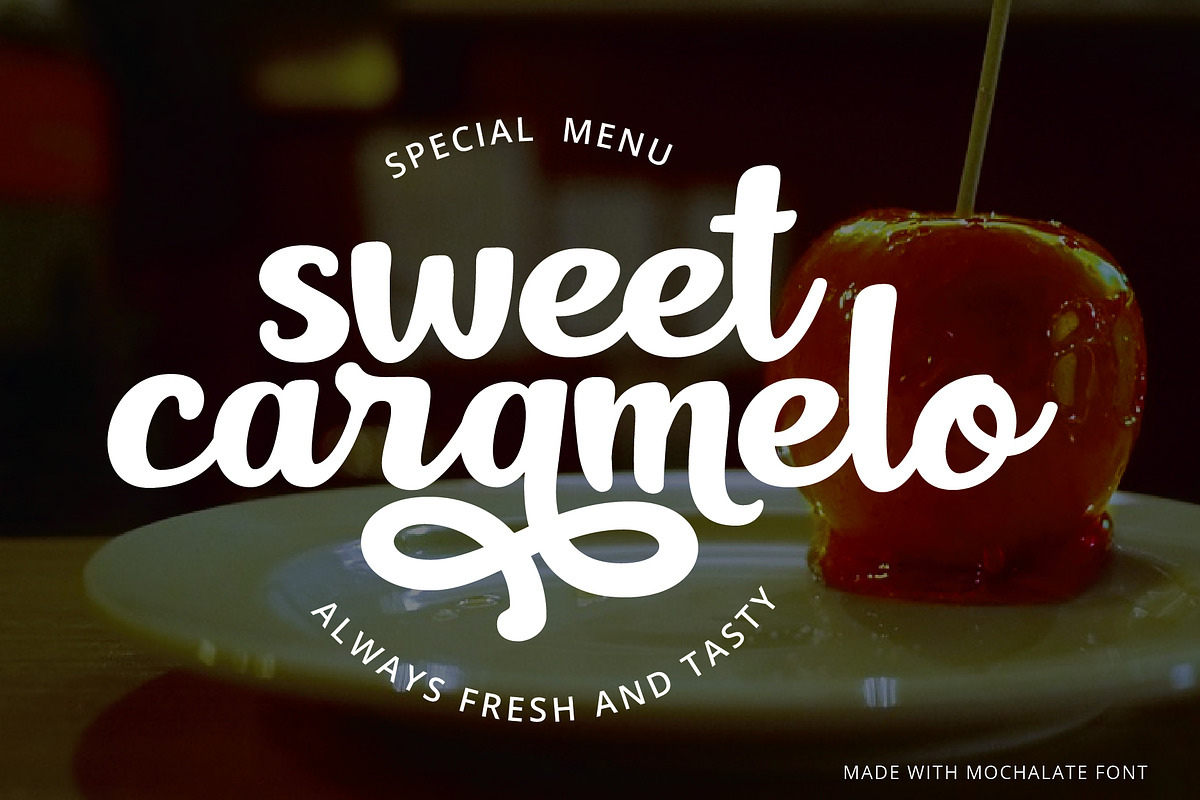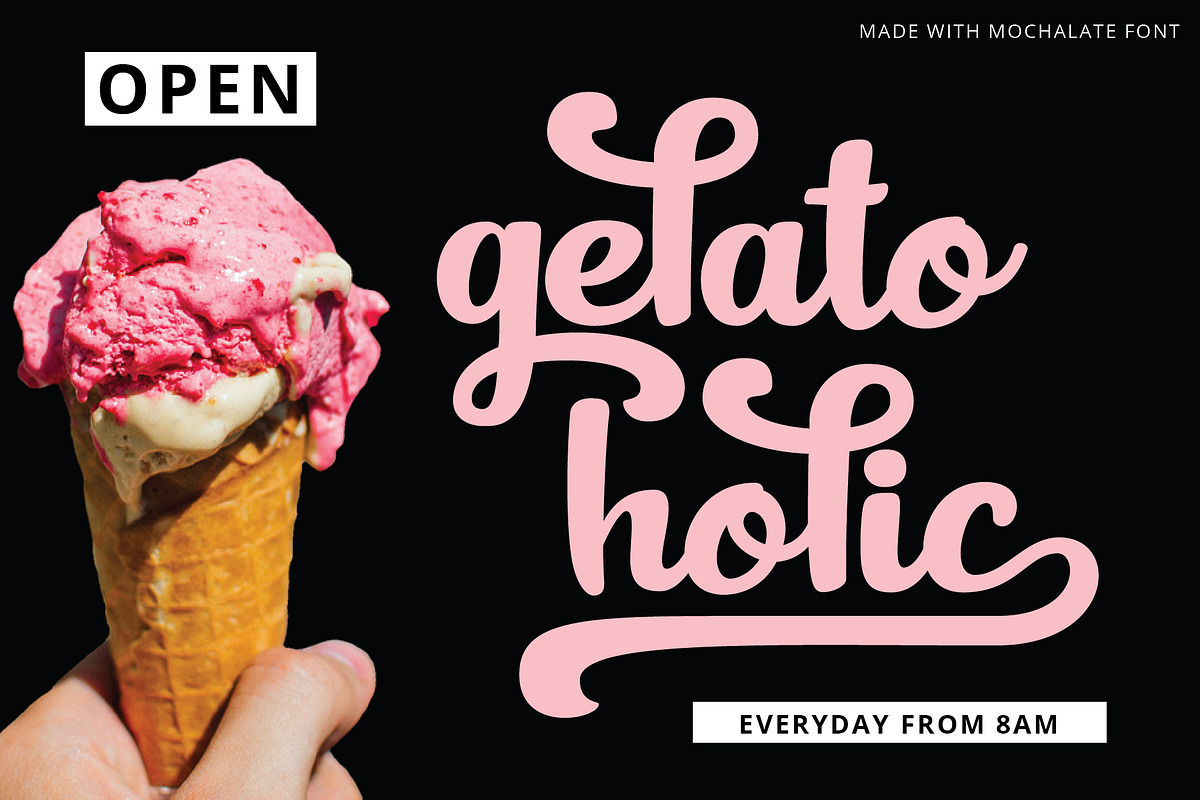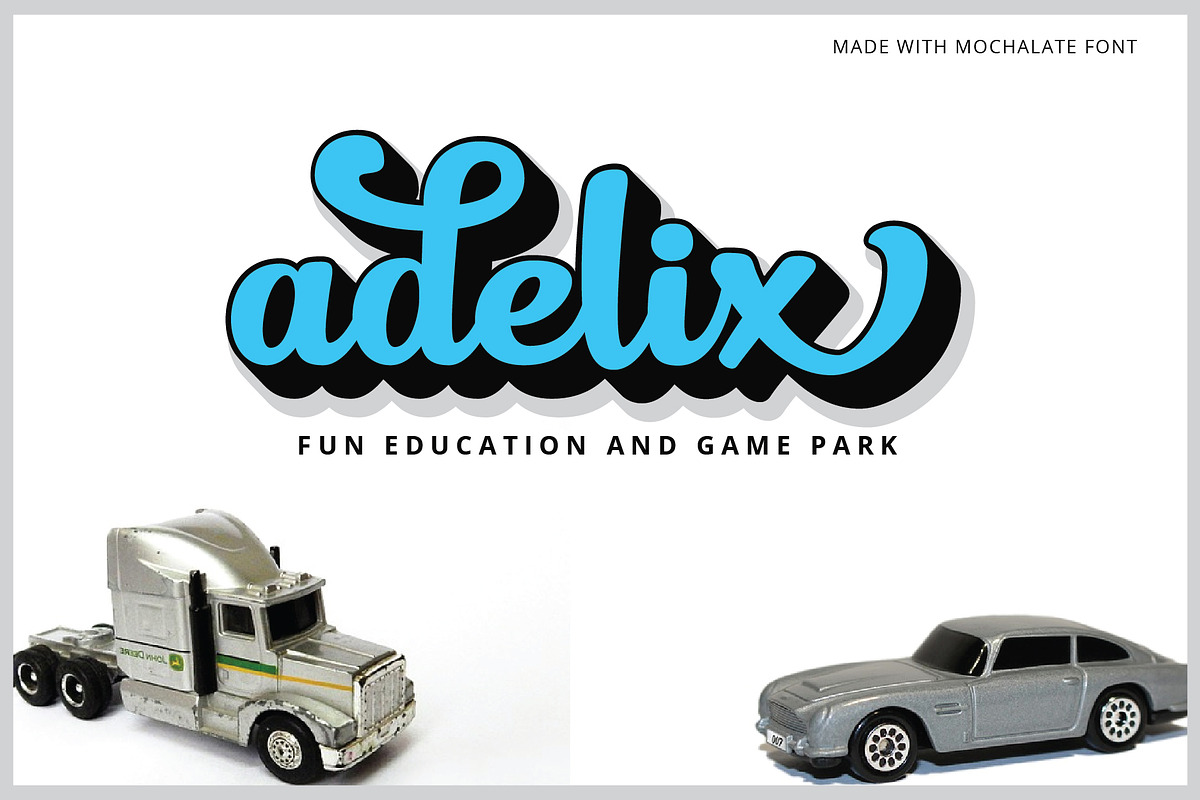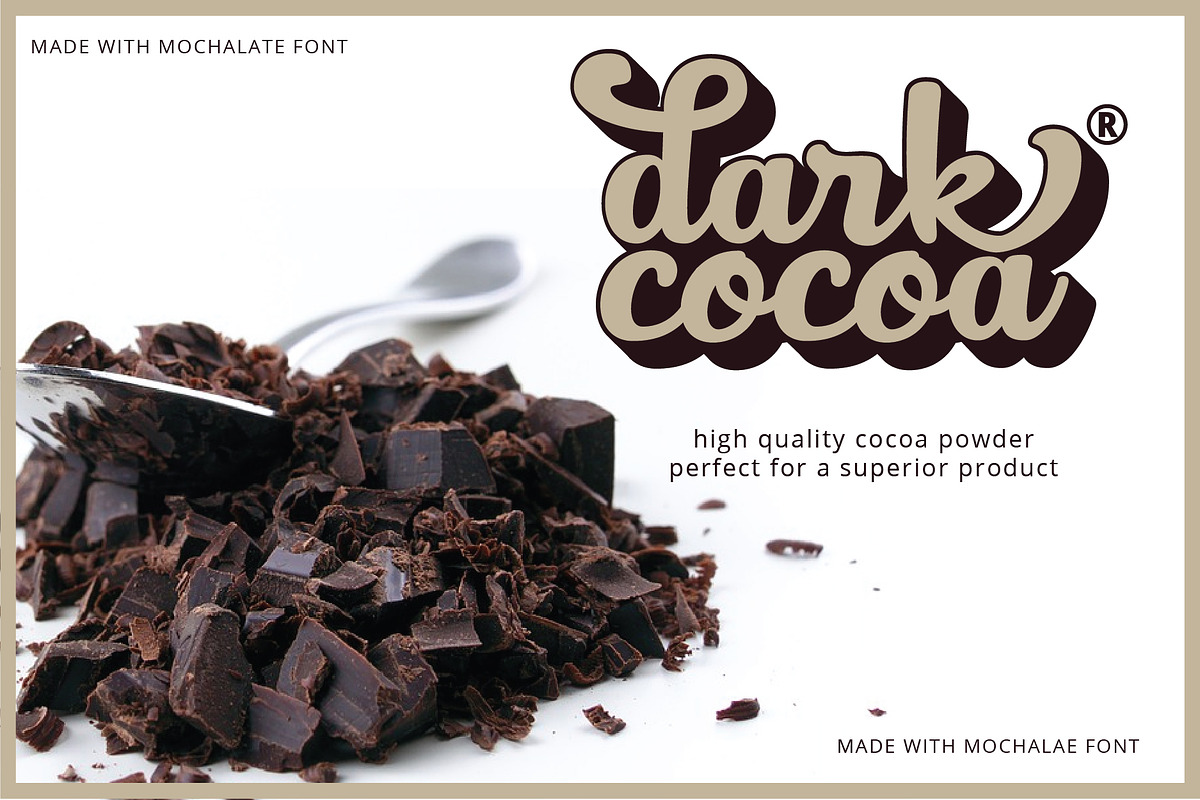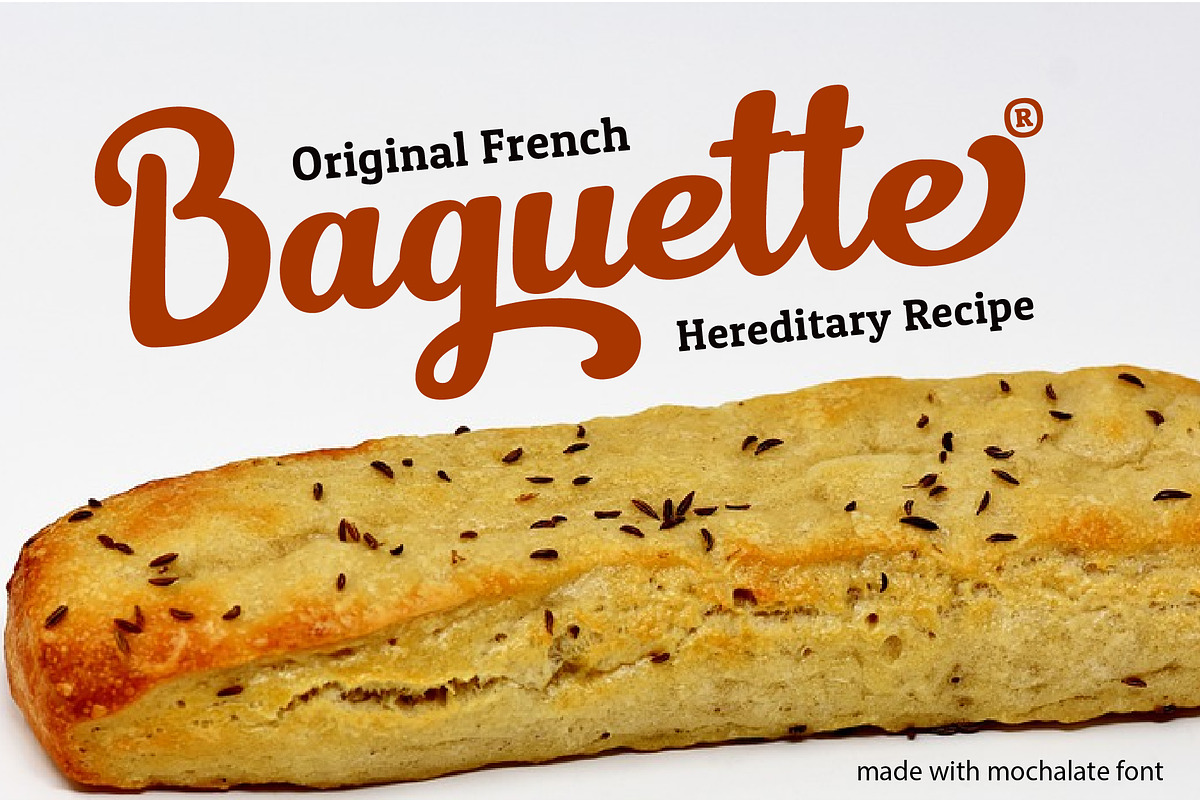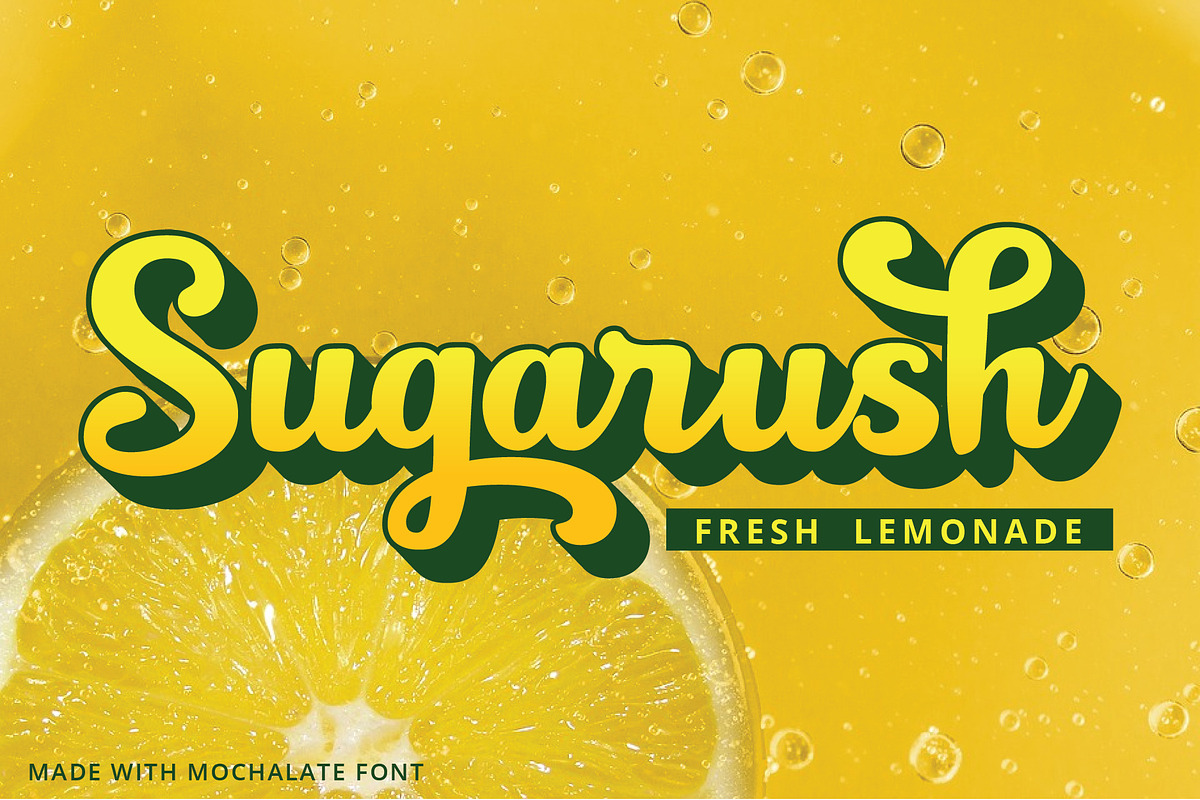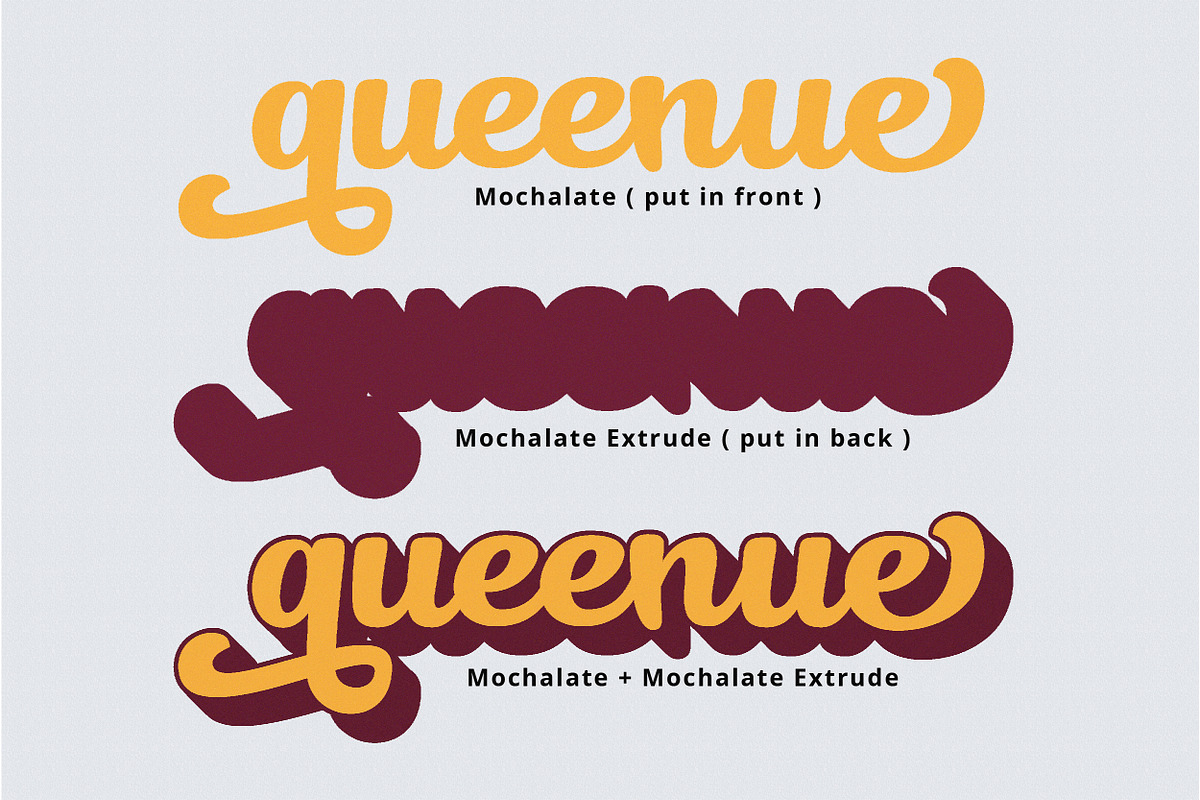
Mochalate | sweet & delicious font
Mochalate script with its extrude font
Mochalate is a bold, savory, sweet and delicious. It comes with its unique extrude shadow version. It's like a mochalatte, a great combination of hot chocolate and thick latte. It is like a chocolate cake that freshly baked from the oven, the smell is so yummy. This font is great for any kind of display use from packaging, title, poster, headline and logos.
Mochalate Scrip is equipped with plenty of OpenType features. Use Mochalate regular and You just type a word and customize the letters by choose the alternates from Glyph Palette. Then paste the word in the same place and change it with Mochalate extrude and bring it to the back. It is like a magic, you got an outstanding type design.
- It comes with its unique extrude shadow version.
- Use Mochalate regular and You just type a word and customize the letters by choose the alternates from Glyph Palette.